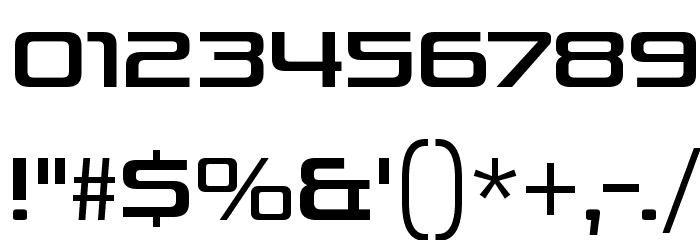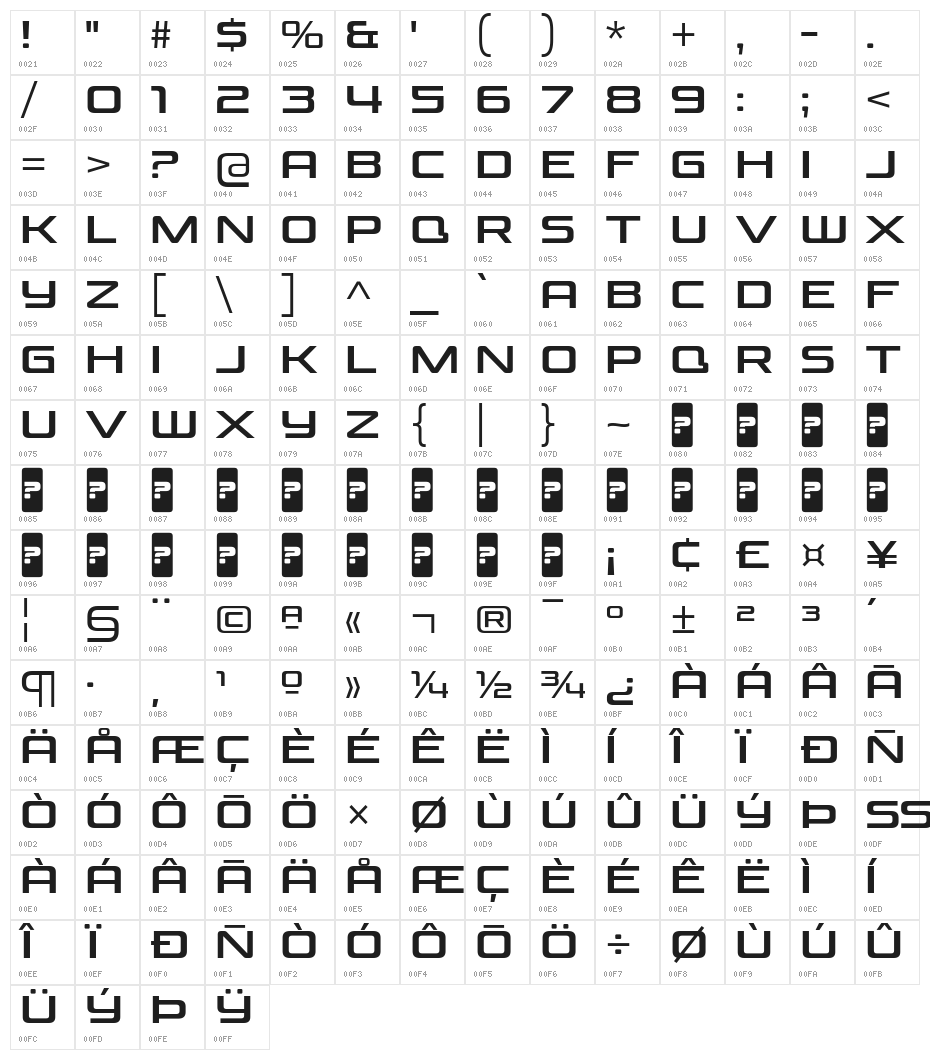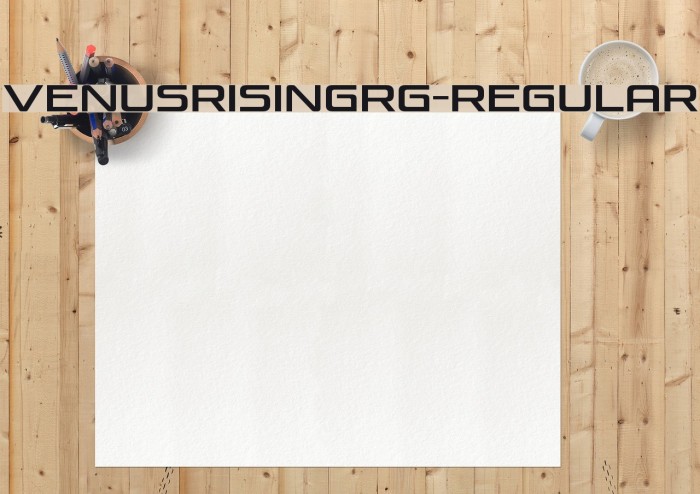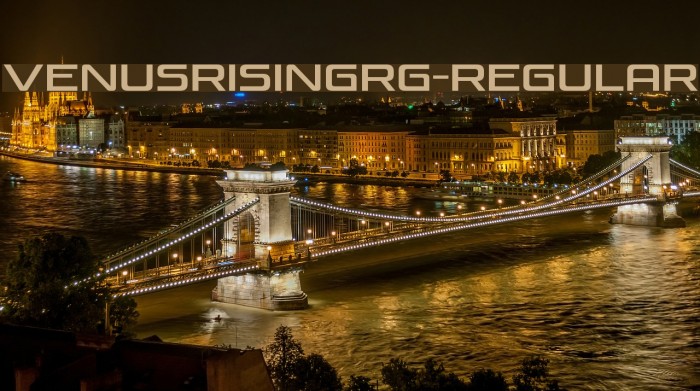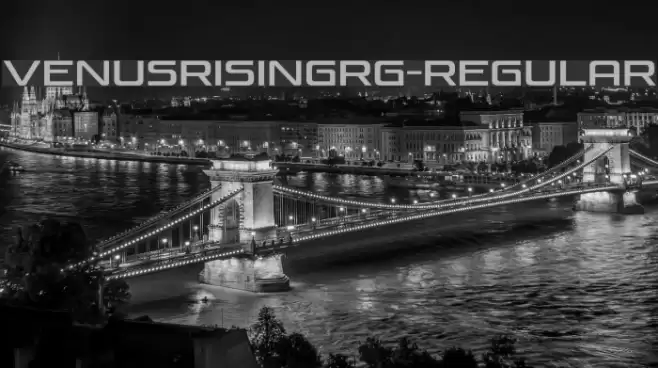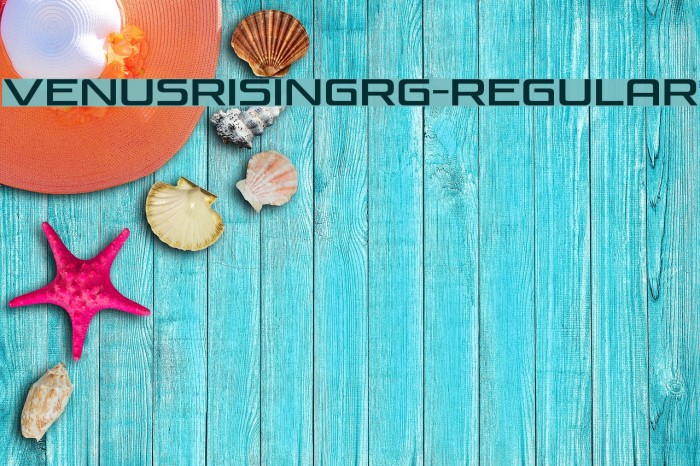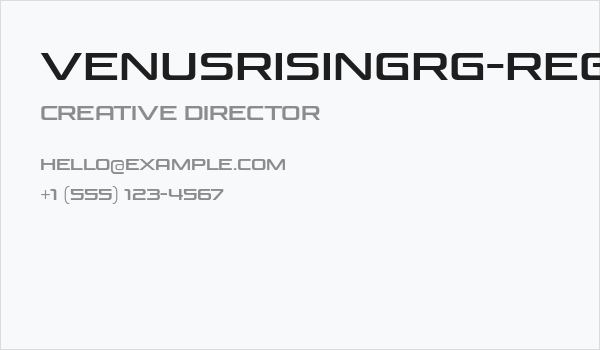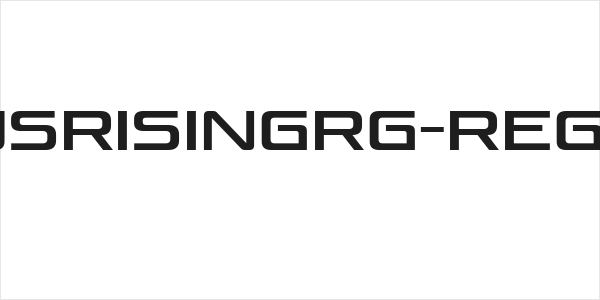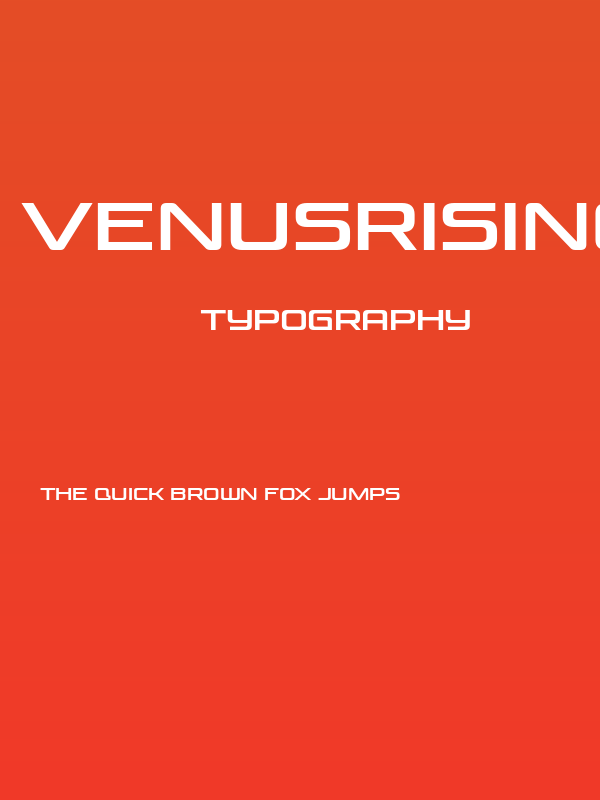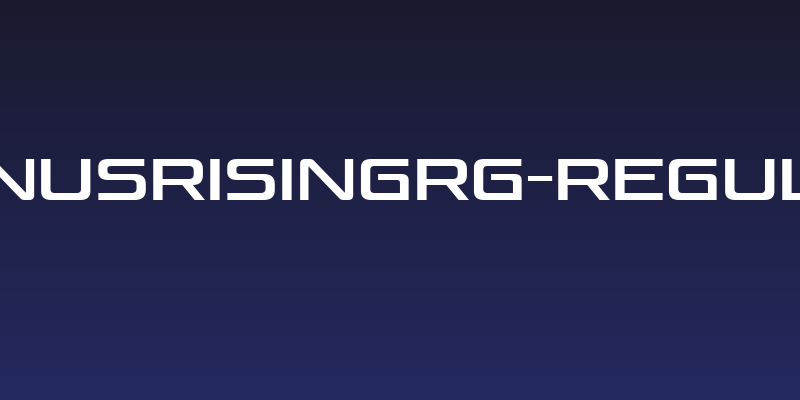
VenusRisingRg-Regular Font
VenusRisingRg-Regular Description
This font features a modern, geometric design with a futuristic appeal. The characters are constructed with clean, straight lines and sharp angles, giving it a sleek and contemporary look. The uppercase and lowercase letters maintain a consistent style, with a uniform height that enhances readability. The numerals and special characters are designed to match the overall aesthetic, ensuring a cohesive appearance across all text. The font's structure is well-balanced, making it suitable for a variety of design applications.
| Proposed Projects | Ideal for technology branding, sci-fi themed projects, modern advertising, and digital interfaces. |